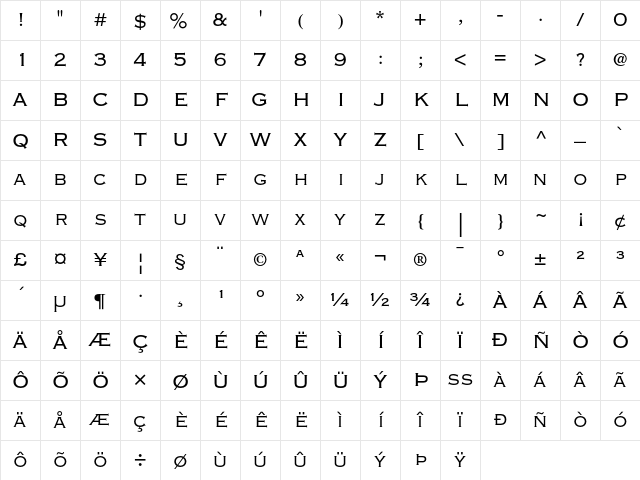
Copperplate Gothic Thirty-Two BC
Complete Copperplate Gothic Thirty-Two BC glyph index. Displaying only characters natively supported by Copperplate Gothic Thirty-Two BC font.
Design Context for Copperplate Gothic
Copperplate Gothic takes a clean, functional approach - its unadorned letterforms prioritise legibility and work reliably across screen and print environments.
Font Pairing: Works well alongside a characterful serif or display font that can carry the expressive load while Copperplate Gothic handles the functional copy.
Pro Tip: Use Copperplate Gothic for UI labels, navigation, and short-form body copy where clean legibility is the priority.